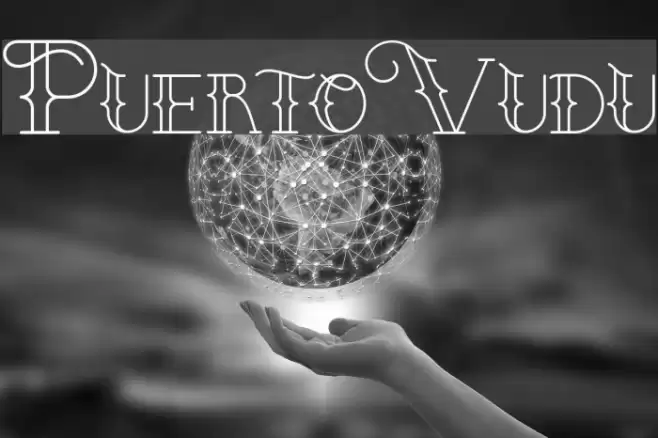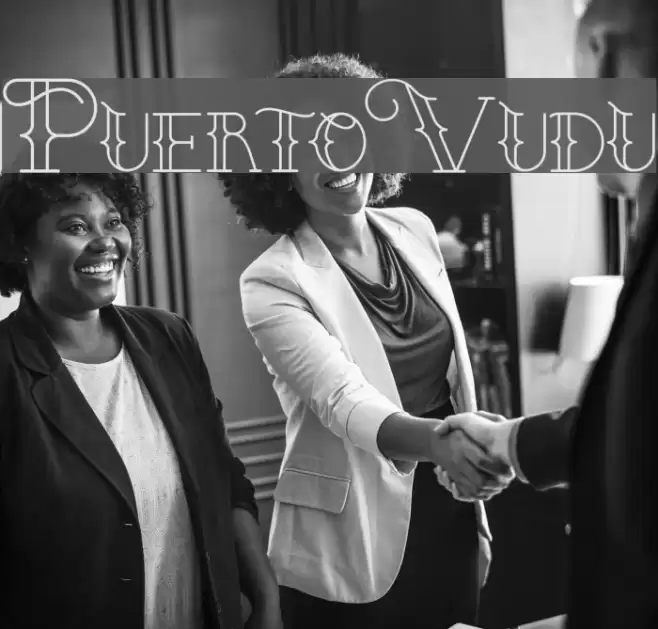
PuertoVudu Font
PuertoVudu Description
This font features an intricate and decorative design with elaborate swirls and flourishes that extend from the main strokes of each letter. The uppercase letters are particularly ornate, with a distinct vintage flair that suggests a sense of elegance and sophistication. The lines are thin, with a consistent stroke width that maintains a delicate appearance. The characters are well-spaced, allowing each letter to stand out while maintaining a cohesive look across text. This font's unique style makes it suitable for creative and artistic projects where a touch of classic elegance is desired.
An ornate and decorative font with vintage flair and elegant flourishes from Uncategorized fonts.
- Proposed Projects: Ideal for wedding invitations, vintage-themed posters, branding for luxury products, and artistic projects requiring a classic touch.
- Overall Style: Vintage